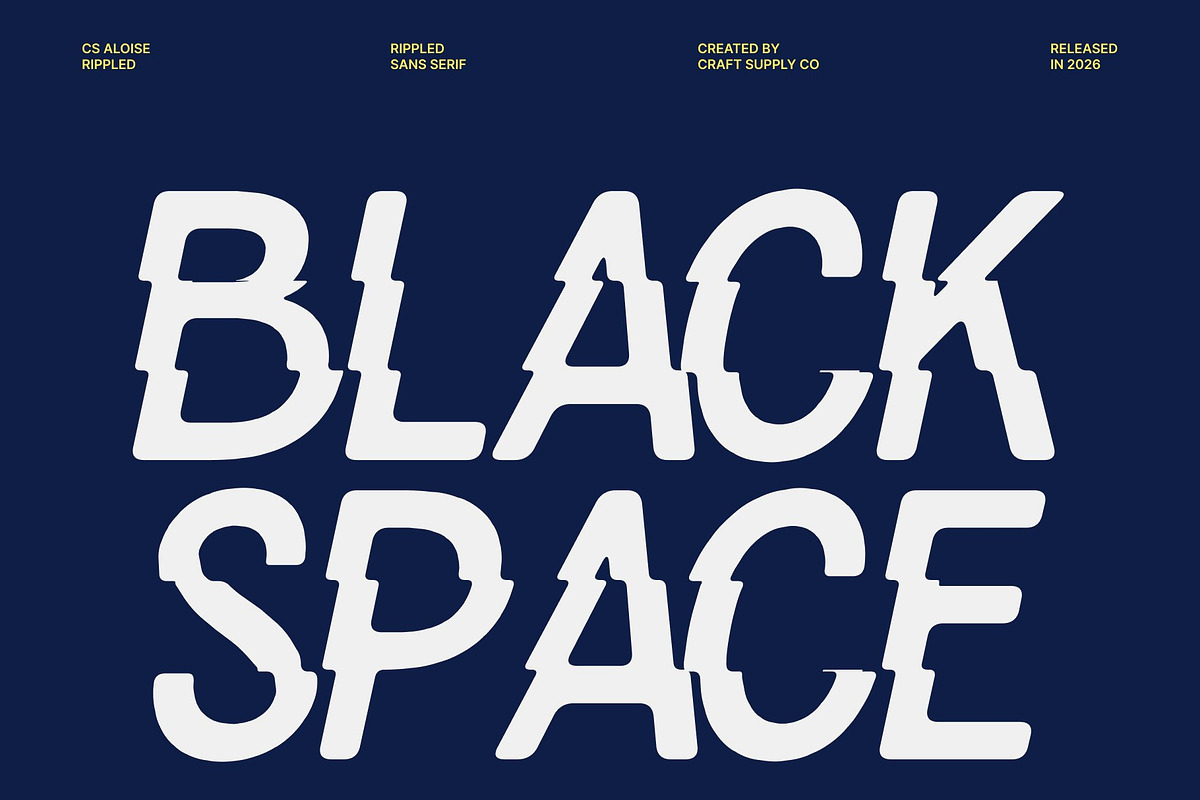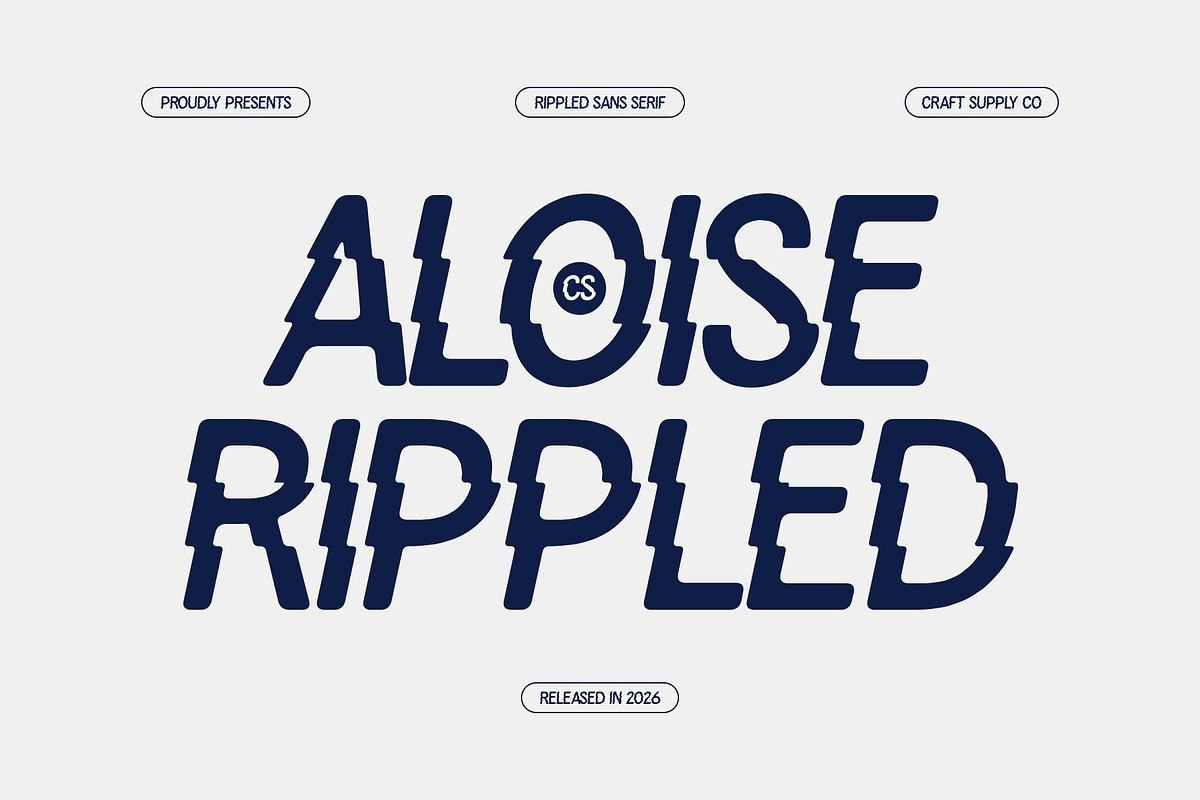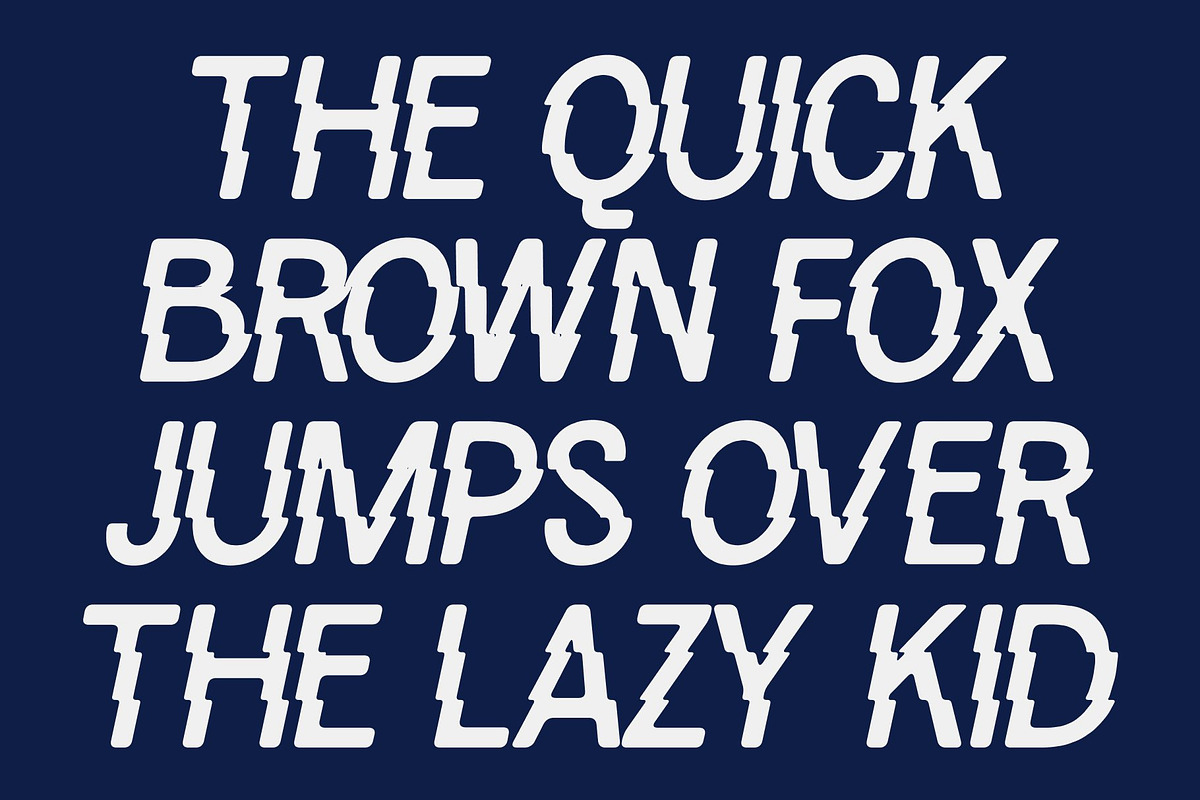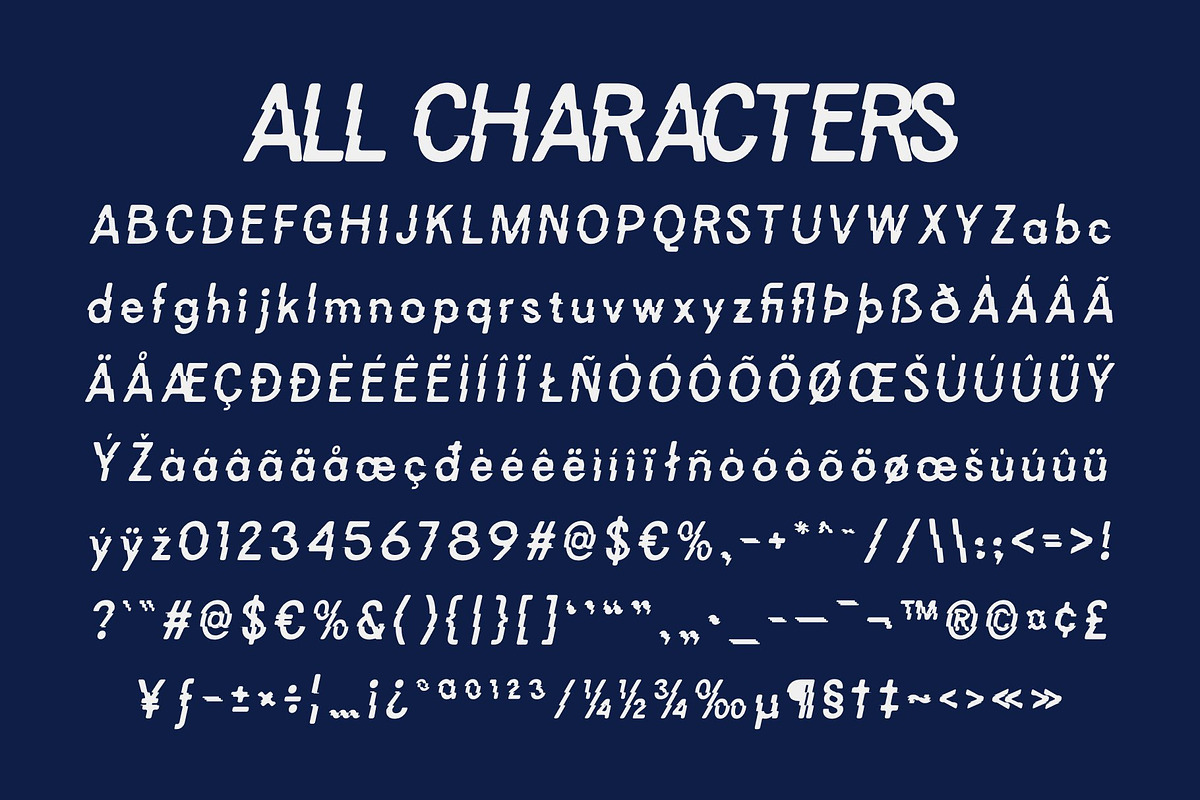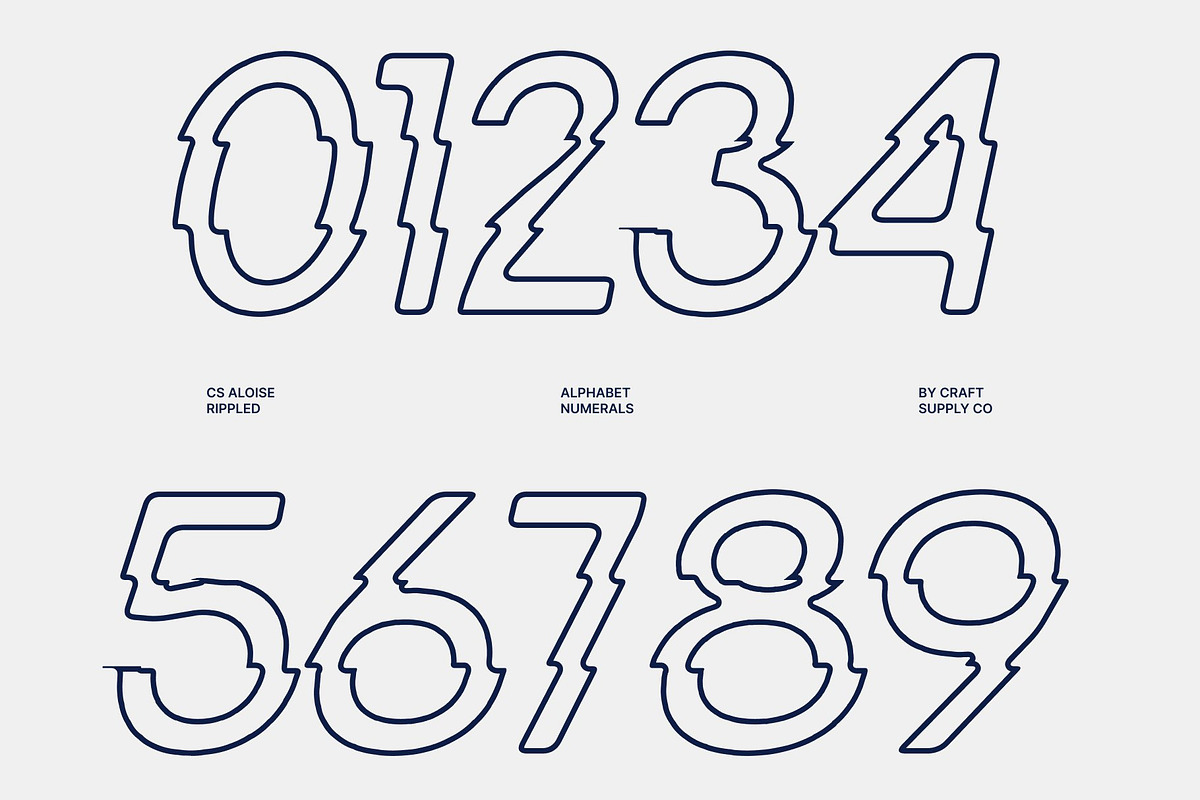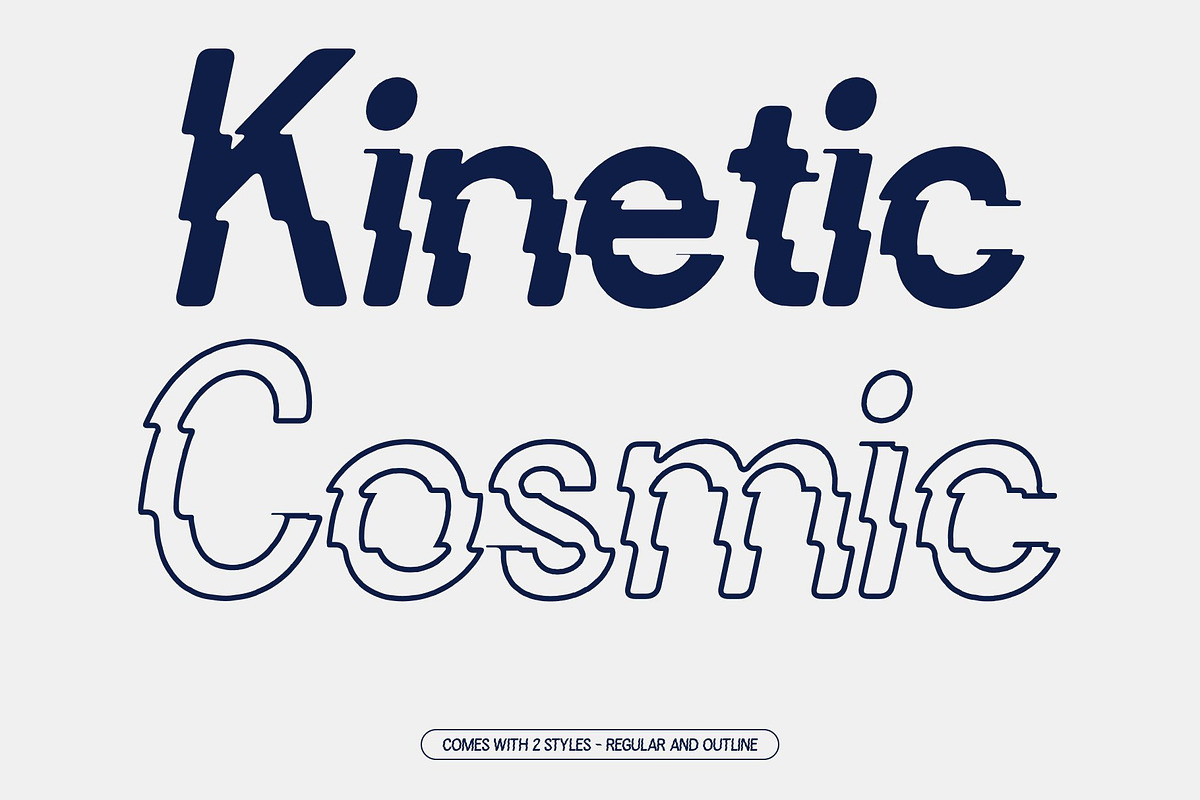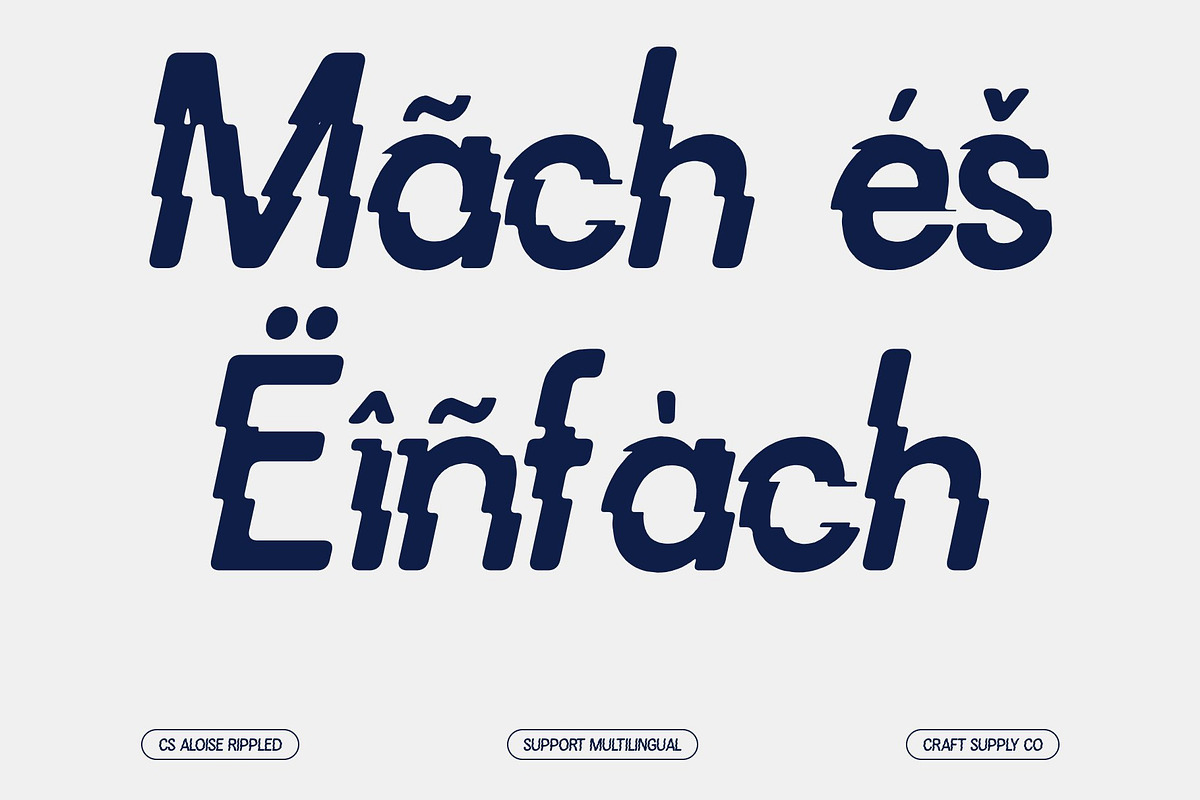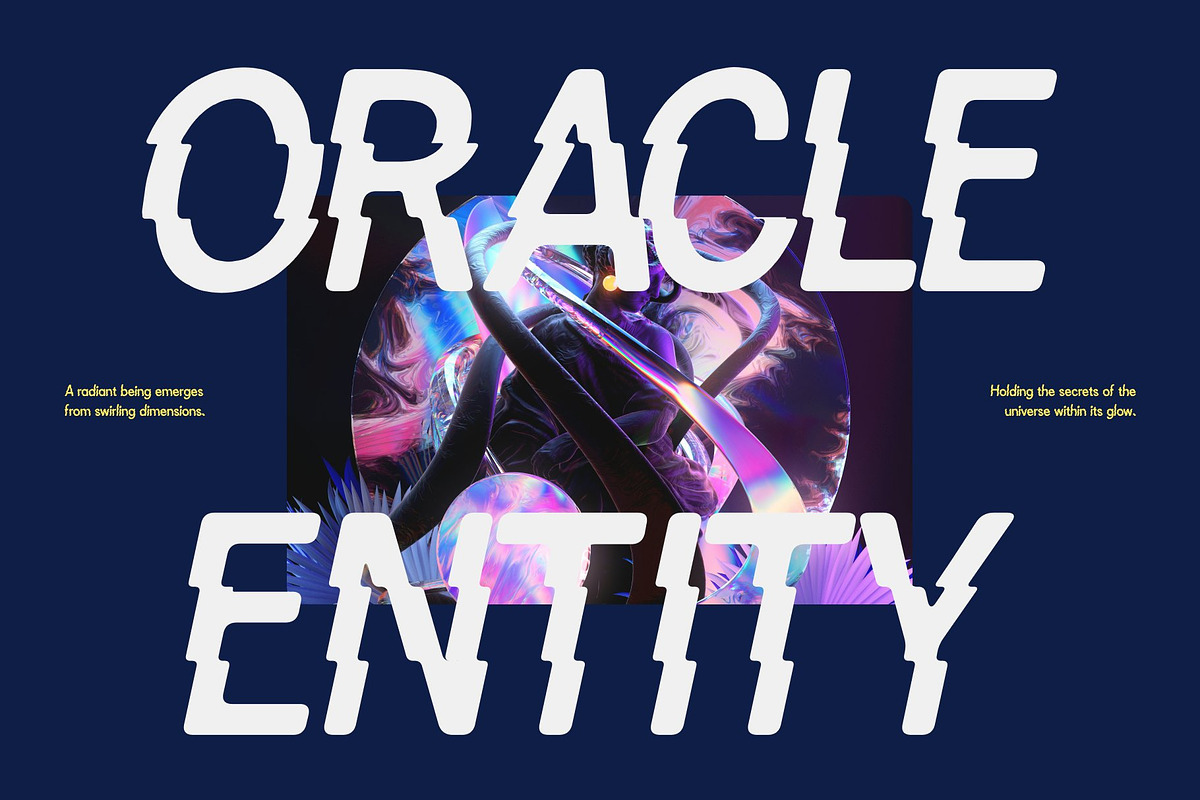
CS Aloise Rippled
CS Aloise Rippled – Contemporary Font with Fluid Modern Precision
Clean and Professional Sans-Serif Design This is a contemporary sans serif typeface crafted to express precision, clarity, and modern sophistication. Built on a geometric foundation, the font delivers a clean and balanced visual structure that enhances harmony across layouts. Its carefully refined proportions create a sleek and professional tone, making every word appear polished and purposeful.
Minimalist Yet Sophisticated Appeal Balancing minimalism with elegance, this font offers a refined typographic voice that feels both modern and timeless. The streamlined letterforms maximize readability while preserving a sophisticated aesthetic suitable for high-end design. Its understated style allows content to shine while still contributing a strong visual identity.
Ideal for Corporate and Editorial Design This font performs exceptionally well in corporate branding, professional presentations, editorial layouts, and digital interfaces. Its precise construction communicates trust, stability, and forward-thinking design values. From business logos and annual reports to website typography and UI systems, the font ensures a cohesive and contemporary appearance across all touchpoints.
Rippled Effect for Subtle Motion and Contemporary Energy The addition of a gentle rippled distortion introduces a refined sense of motion inspired by water reflections and fluid surfaces. This effect adds visual depth and modern energy without compromising the font’s clean identity. It brings a subtle dynamic quality that enhances digital campaigns, creative branding, and modern visual storytelling.
CS Aloise Rippled Regular
CS Aloise Rippled Outline